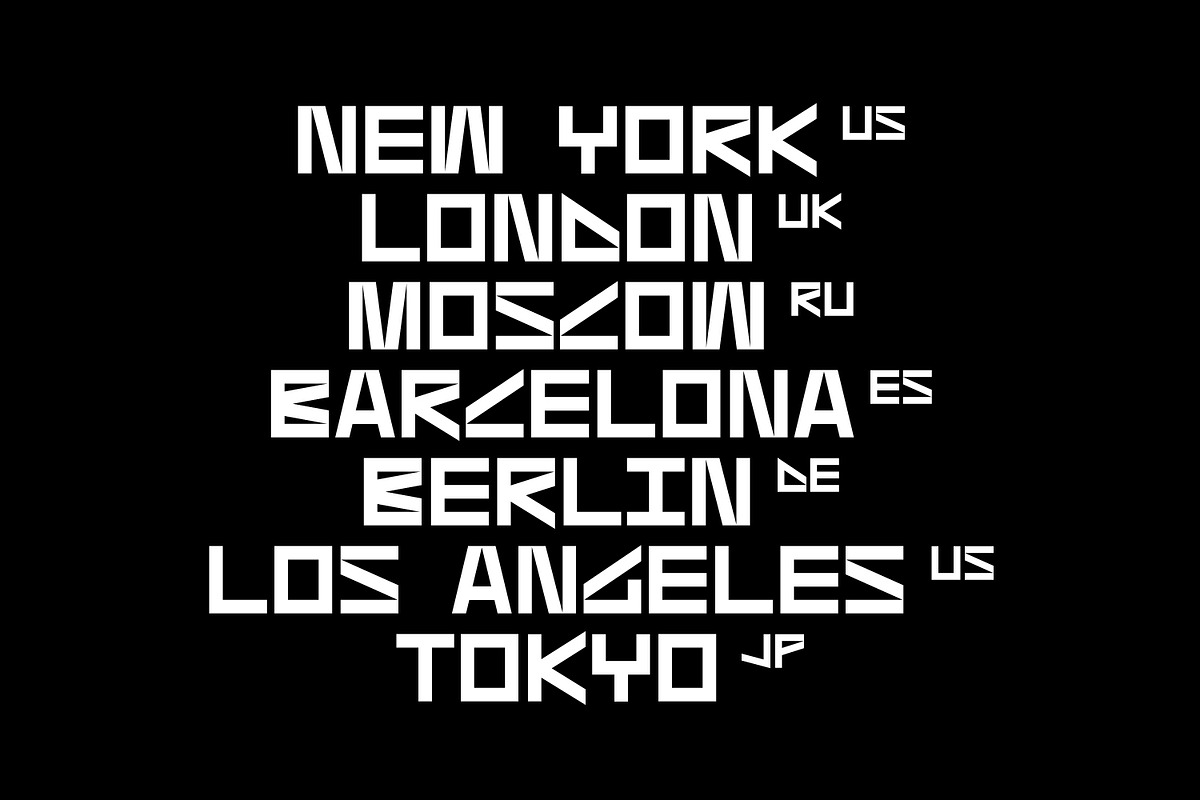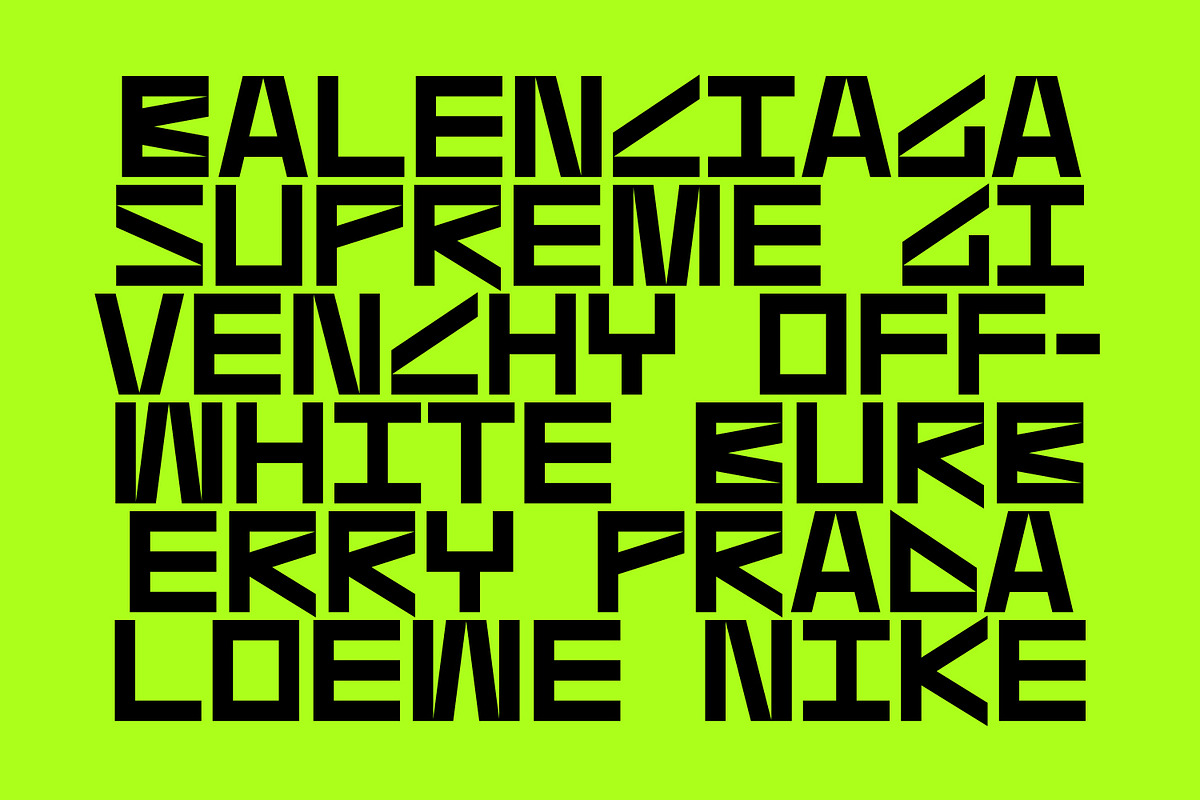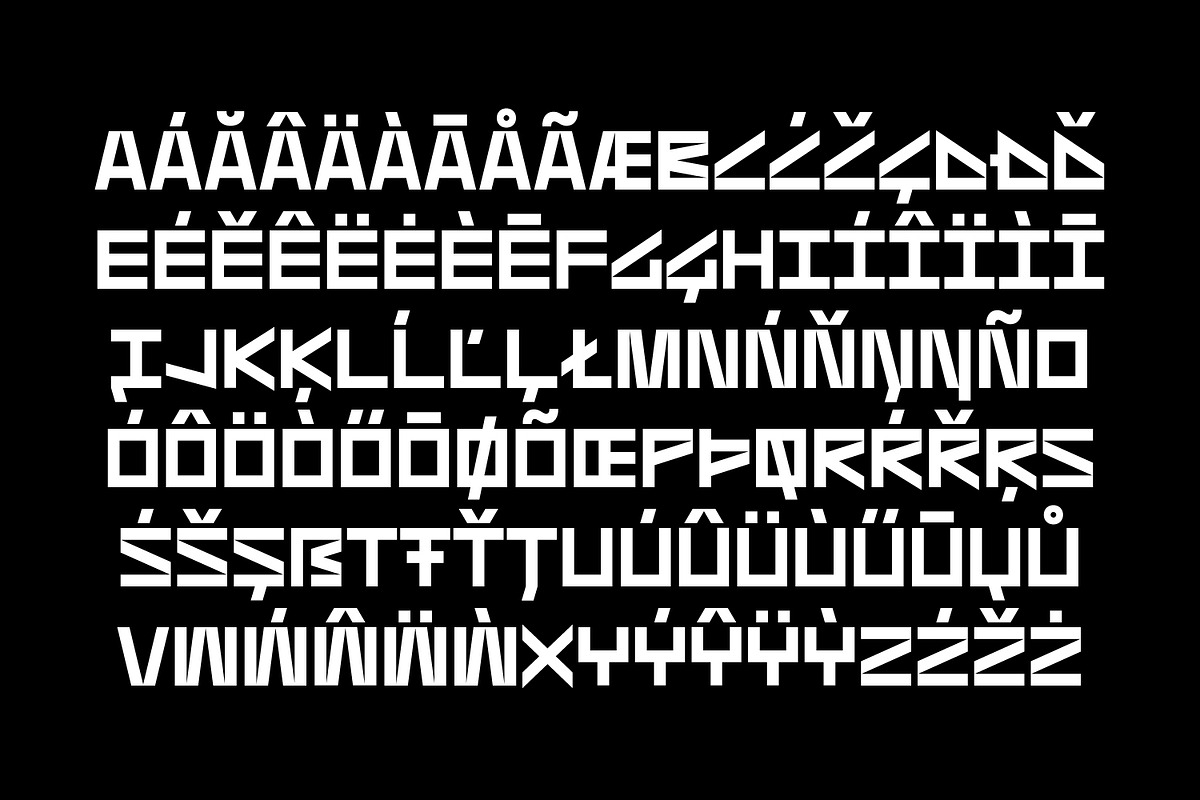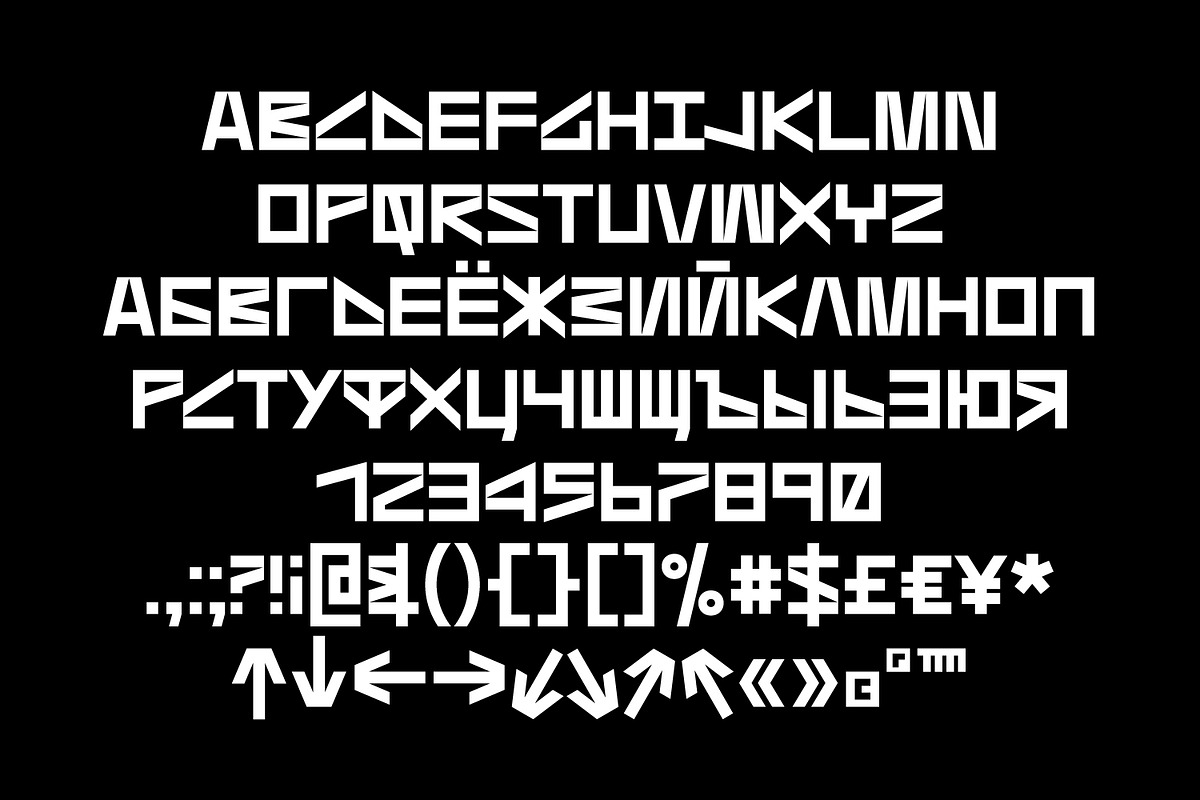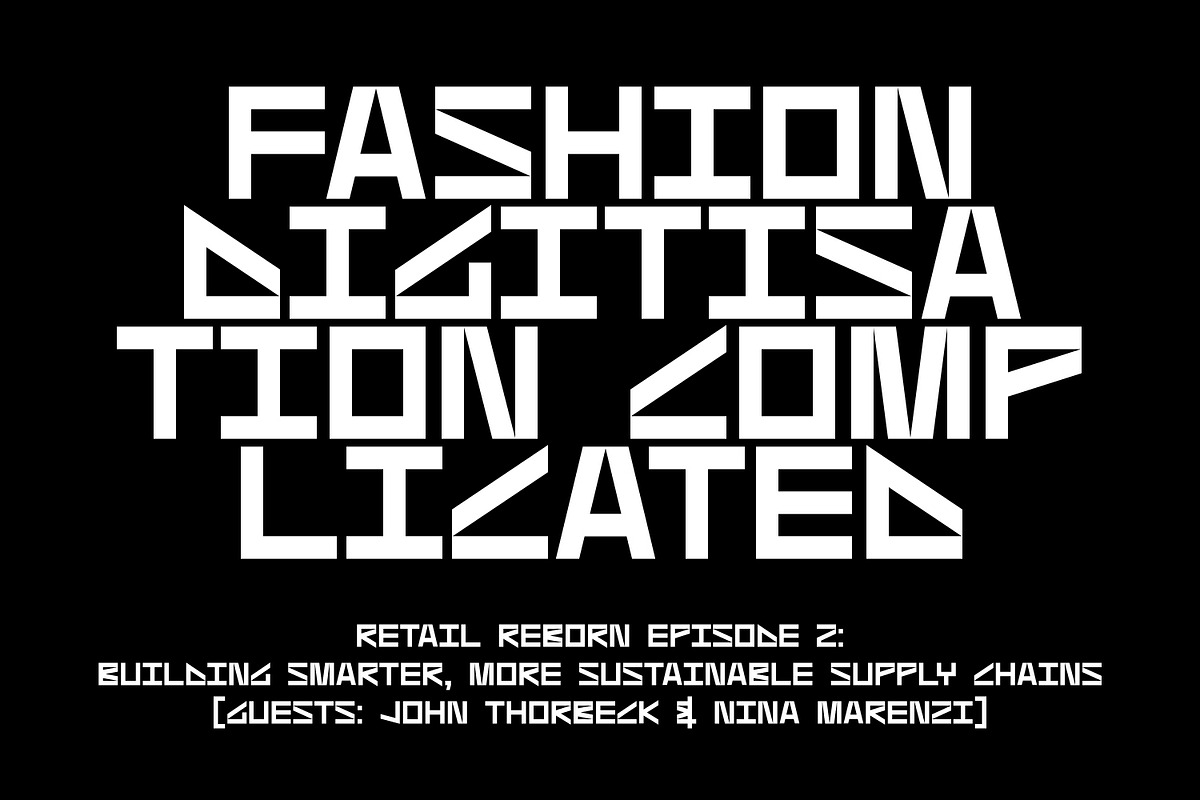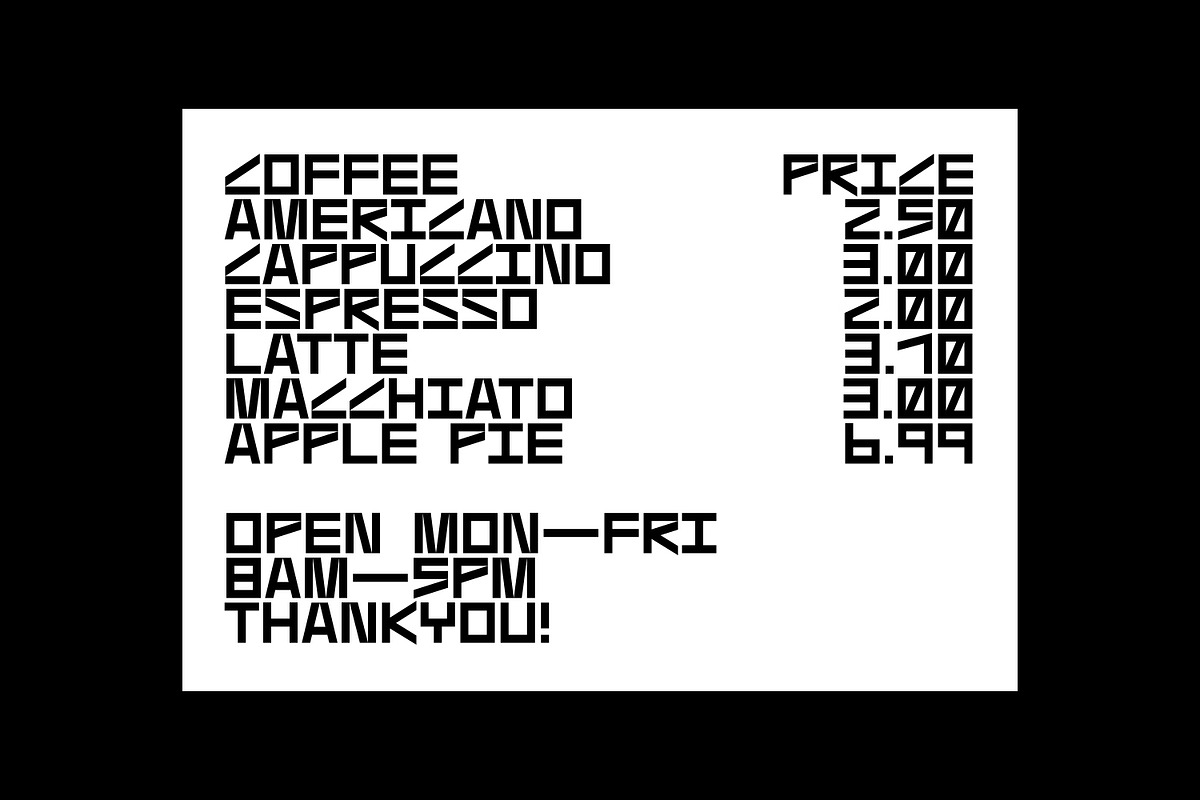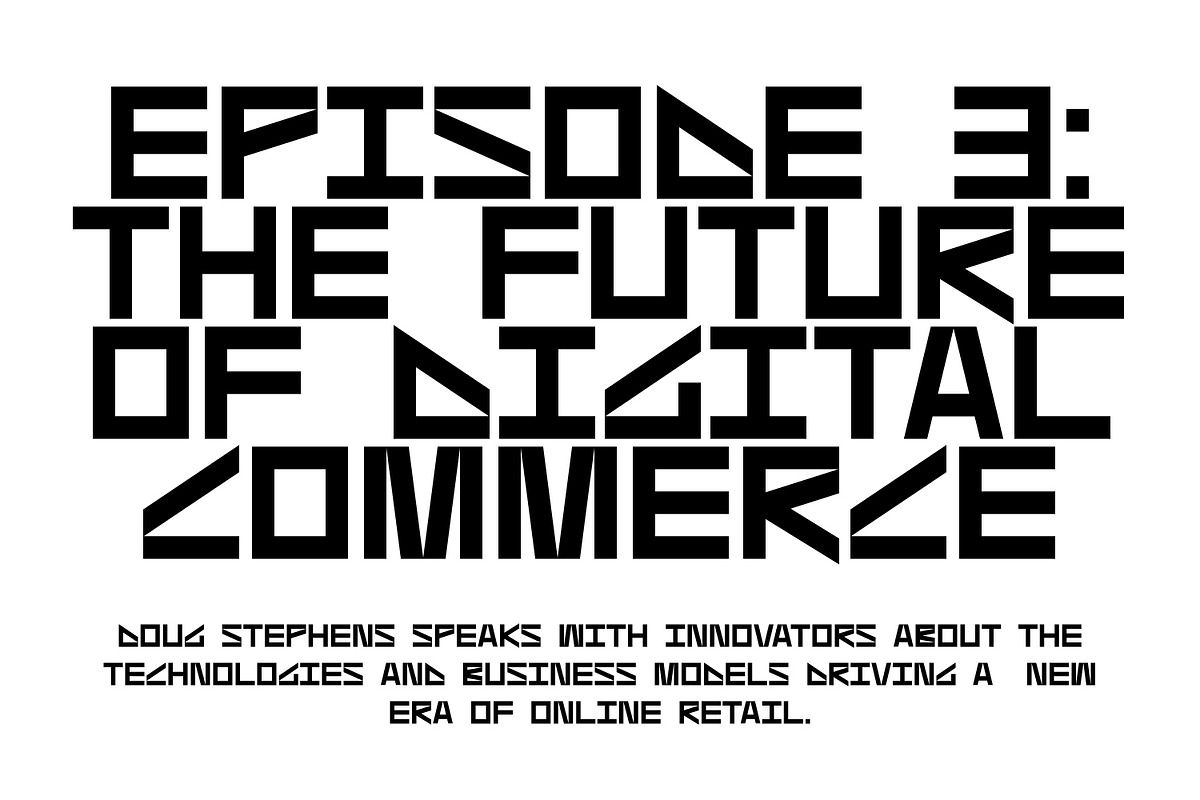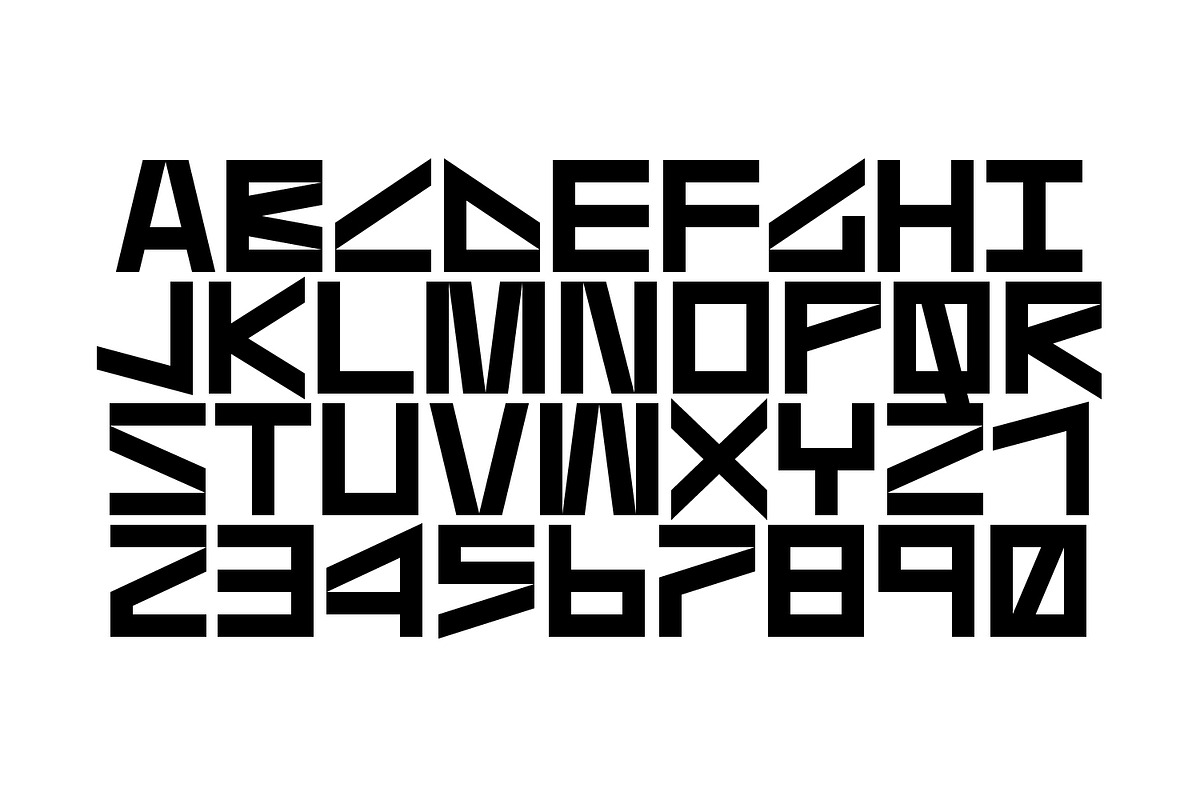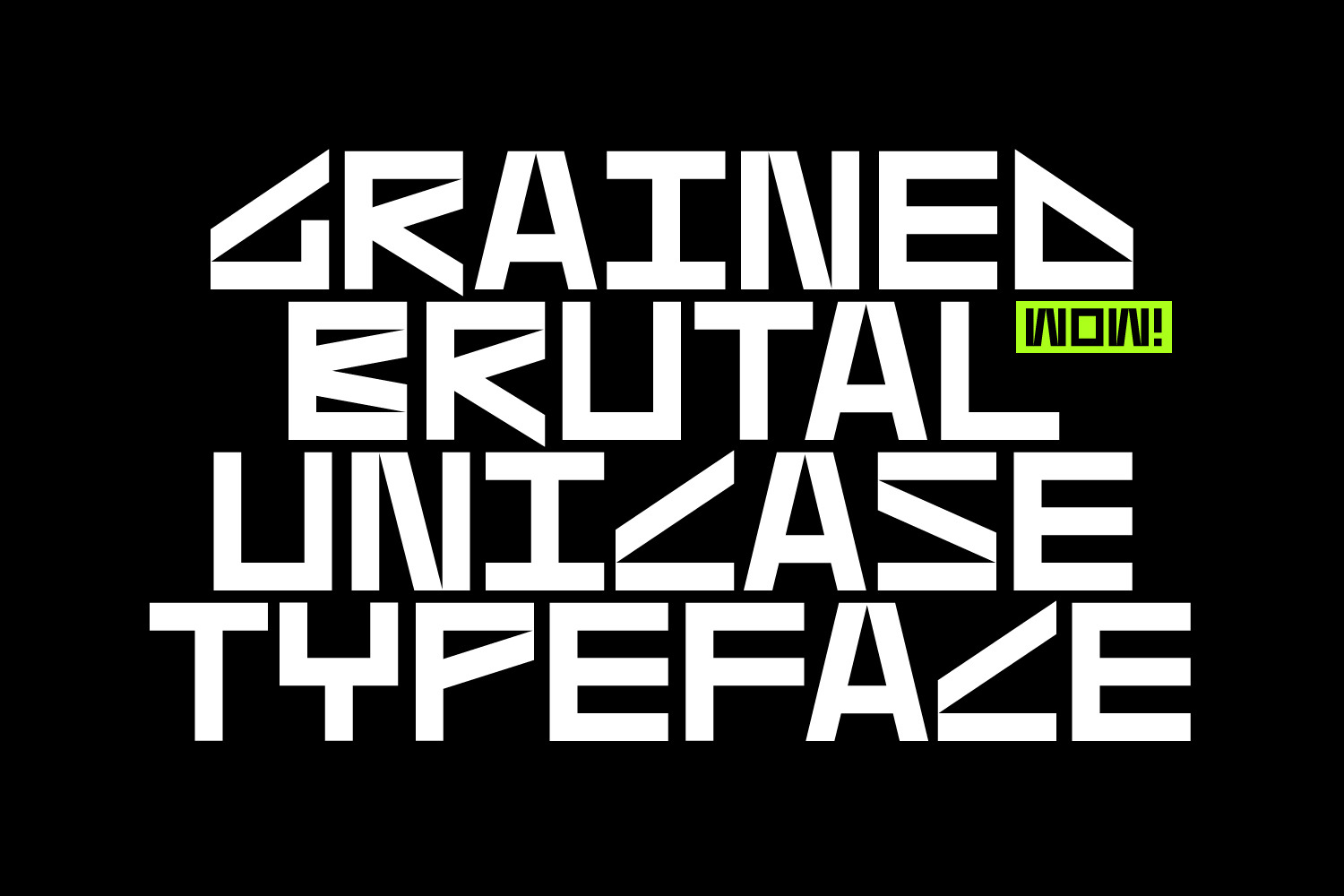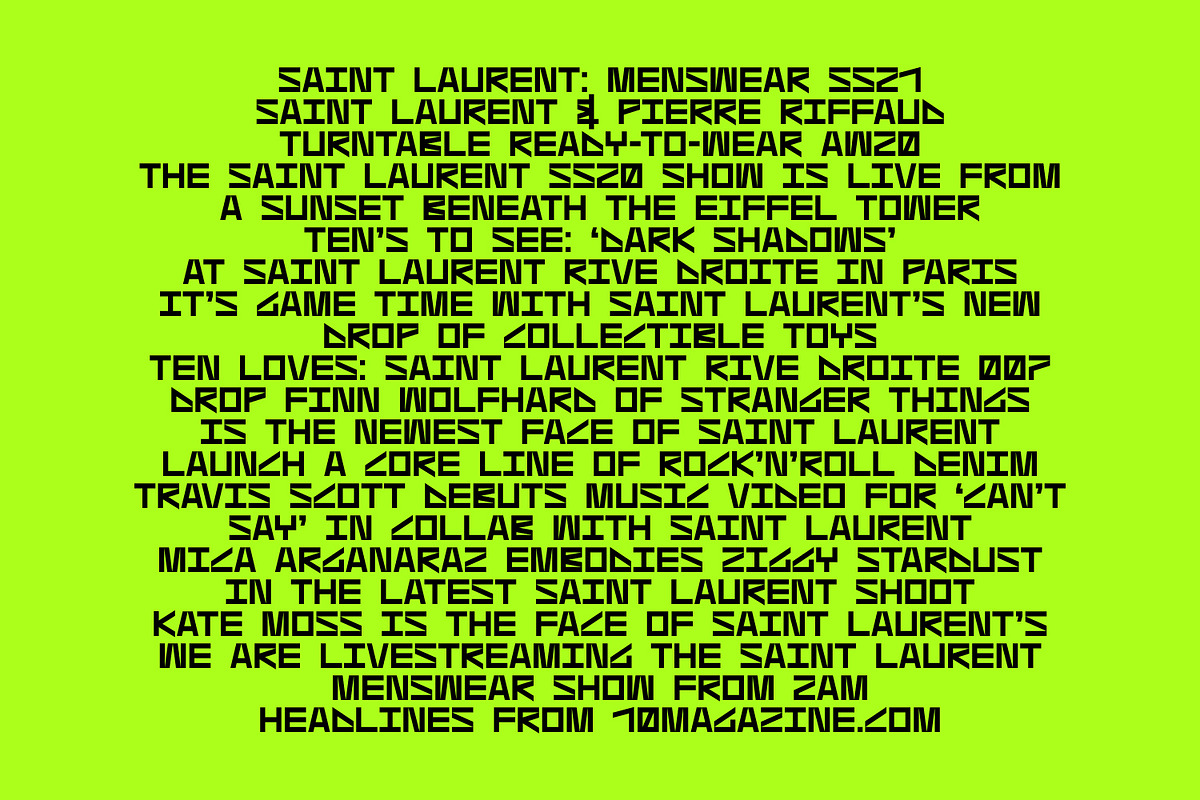
Grained Brutal
GRAINED BRUTAL is a sexy, bold and powerful modern tech unicase font, designed for maximum visual and emotional impact. It's great for social media, headlines, large-format print, editorial, branding, posters, fashion designs and websites — everything that strives for being loud, vibrant and confident. Definitely has a personality!
- Unicase
- Cyrillic
- Western European languages
- Brutal and sexy